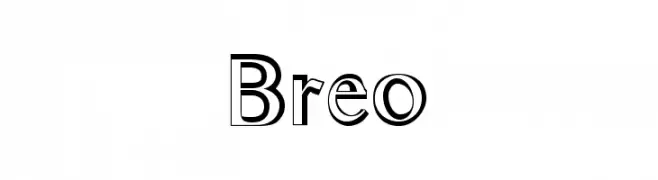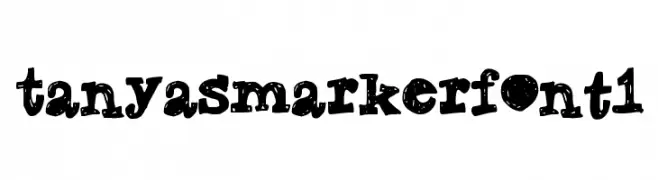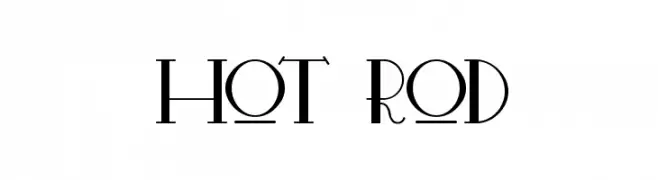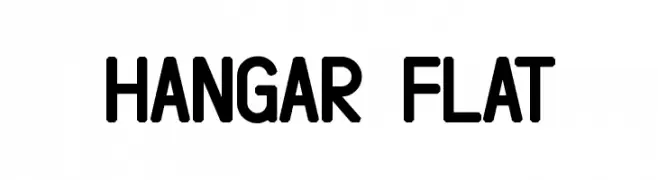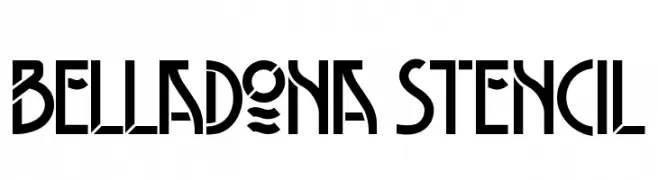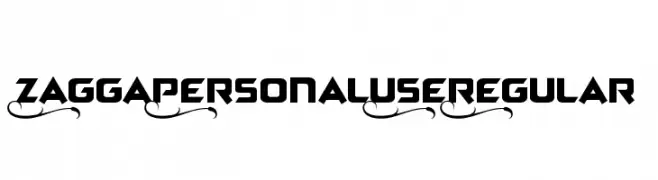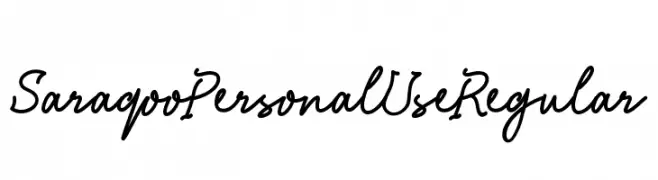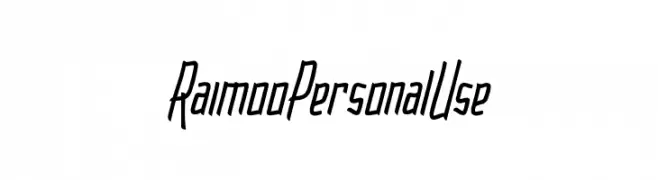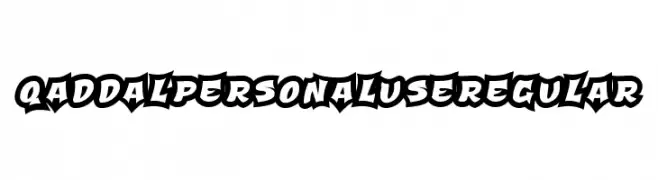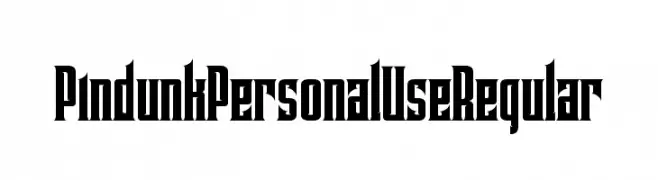
( Tara Gabin )
A modern, outlined font with geometric influences and a classic touch.
( Tanya DeMarco - tanyademarco.com )
A playful, hand-drawn font with a bold, textured style.
( Tano Veron - www.be.net/tanoveron )
A bold, high-contrast font with sharp angles and modern geometric elements.
( Tano Veron - www.be.net/tanoveron )
A modern, striped font with a bold, industrial aesthetic.
( Tano Veron - www.be.net/tanoveron )
A bold, rounded sans-serif font with a clean and modern style.
( Tano Veron - www.be.net/tanoveron )
A bold, stencil-style font with geometric shapes and high contrast.
( Tannon Behunin )
A sleek, geometric font with thin lines and a modern, technical aesthetic.
( Tannon Behunin )
A futuristic, geometric font with sharp angles and clean lines.
( Tami Vu - thepinksushi.com )
A playful, hand-drawn font with tall, narrow characters and a whimsical style.
( Tami Vu - thepinksushi.com )
A playful, hand-drawn font with thin strokes and a whimsical style.
( Tama Putra - be.net/tmptr )
A bold, geometric font with sharp, angular letterforms and high contrast.
( Tama Putra - be.net/tmptr )
A cursive, handwritten-style font with elegant, flowing strokes.
( Tama Putra - be.net/tmptr )
A dynamic, modern font with elongated, slanted characters and consistent stroke width.
( Tama Putra - be.net/tmptr )
A bold, jagged font with dynamic, energetic styling.
( Tama Putra - be.net/tmptr )
A bold, gothic-inspired font with sharp, angular edges.
( Tama Putra - be.net/tmptr )
A bold, angular font with Art Deco influences, perfect for impactful headlines.
( Tama Putra - be.net/tmptr )
A bold, angular font with high contrast and geometric style.
( Tama Putra - be.net/tmptr )
A bold, playful handwritten font with rounded characters and a dynamic slant.
( Tama Putra - be.net/tmptr )
A modern, geometric font with a clean and elegant style.
( Tama Putra - be.net/tmptr )
A bold, gothic-inspired font with intricate blackletter details.
( Tama Putra - be.net/tmptr )
A dynamic and elegant script font with flowing, cursive letterforms.
( Tama Putra - be.net/tmptr )
A bold, geometric font with a modern and edgy style.
( Tama Putra - be.net/tmptr )
A modern, geometric font with bold uppercase and elegant lowercase letters.
( Tama Putra - be.net/tmptr )